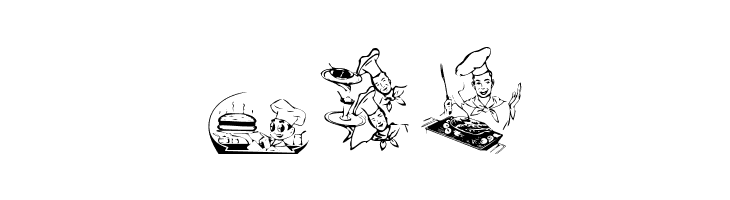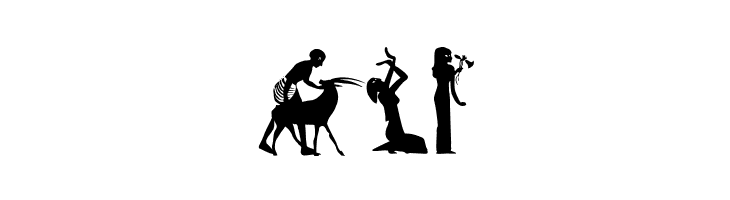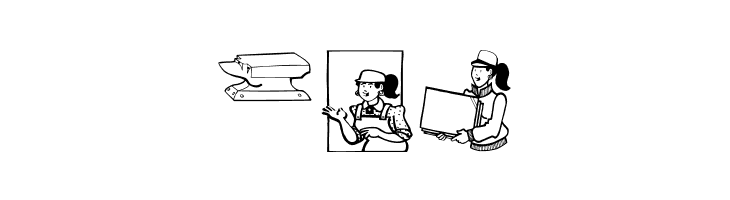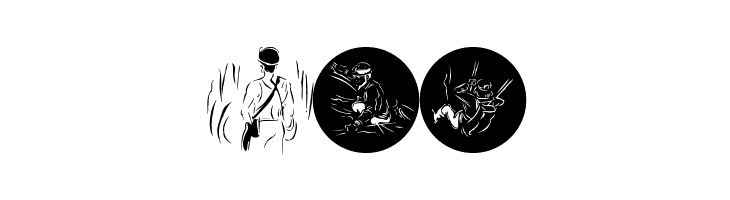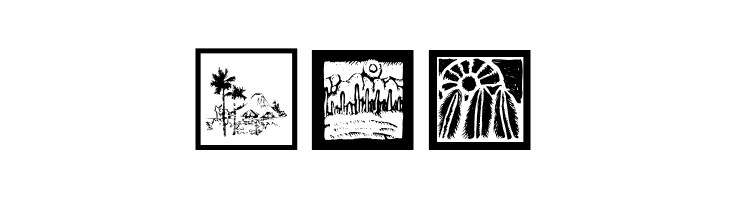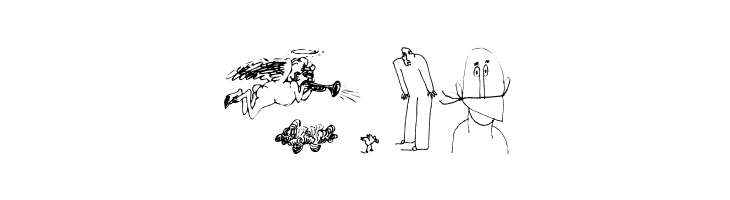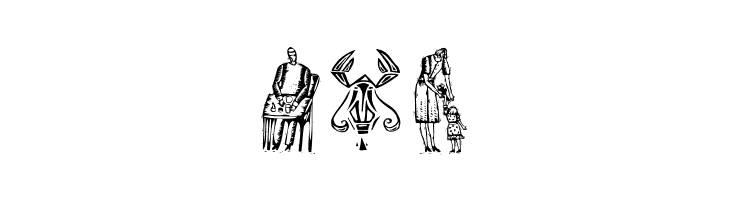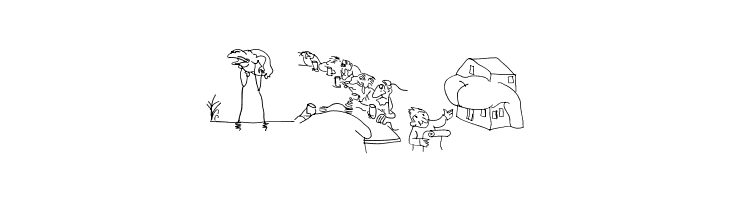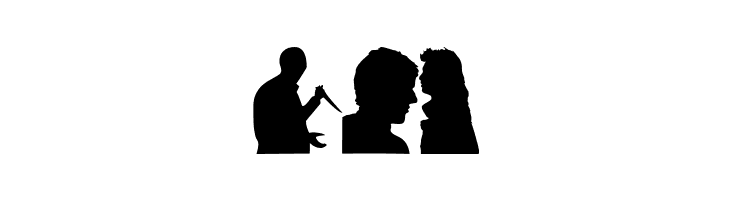
Hand-drawn, food-themed cartoon illustrations replace standard glyphs.
Egyptian-themed silhouette pictogram font with strong visual storytelling.
Illustrative construction-themed dingbat font.
Illustrative dingbat font depicting climbers in various poses.
Hand-drawn pictogram font featuring landscape and townscape illustrations.
Cartoon school-themed illustrative font with characters made from playful scenes.
A whimsical, cartoon-illustrated decorative font.
A pictorial dingbat font with detailed illustrations for each character.
Cartoon illustration font with each character as a unique drawing.
A display font made from human silhouette illustrations.